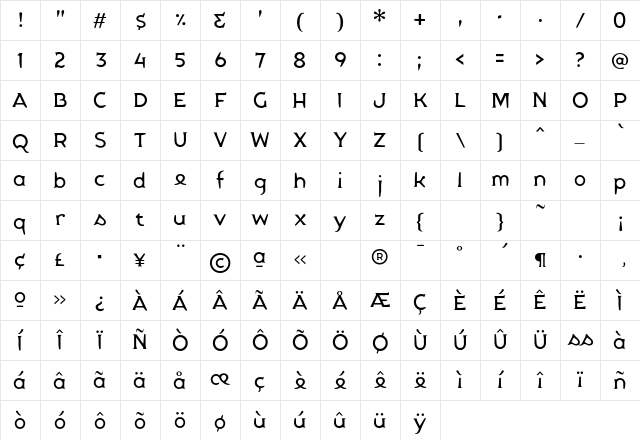
Complete Utility57 AGauge glyph index. Displaying only characters natively supported by Utility57 AGauge font.
Utility57 is a composed and adaptable typeface that performs quietly and consistently across a wide range of design contexts.